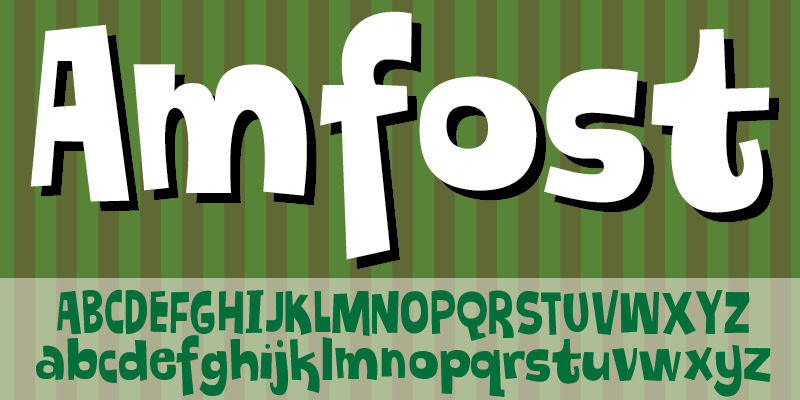
Amfost Font is ideal for modern branding, contemporary logos, creative agencies, innovative packaging, tech startups, digital platforms, and progressive visual communications. This distinctive typeface brings bold character and contemporary sophistication to forward-thinking design projects.
Amfost Font is exciting because it combines innovative letterform design with contemporary functionality, featuring unique character shapes and dynamic proportions that create memorable visual impact while maintaining exceptional readability and modern appeal across diverse applications.
The Amfost Font family includes multiple weights ranging from Light to Bold, along with corresponding stylistic variations and extended character sets. This comprehensive collection provides designers with extensive typographic flexibility for creating dynamic and cohesive modern brand systems.
Amfost Font Free Download provides access to a thoughtfully crafted typeface that represents the evolution of contemporary typography and innovative design excellence. This sophisticated font features carefully engineered letterforms with distinctive character details and optimized spacing that ensure exceptional performance across all modern applications and digital platforms. The typeface showcases innovative design principles with bold creative elements that create visual interest while maintaining professional reliability and functional excellence. Its progressive character makes it particularly suitable for forward-thinking brands and creative projects that require typography capable of conveying innovation, creativity, and contemporary sophistication. Amfost Font delivers consistent performance across various media platforms, from digital interfaces to premium print materials. The font's modern aesthetic and technical precision ensure superior results that enhance brand recognition and communication effectiveness while providing users with a refined and engaging typographic experience that reflects contemporary design innovation and creative excellence.